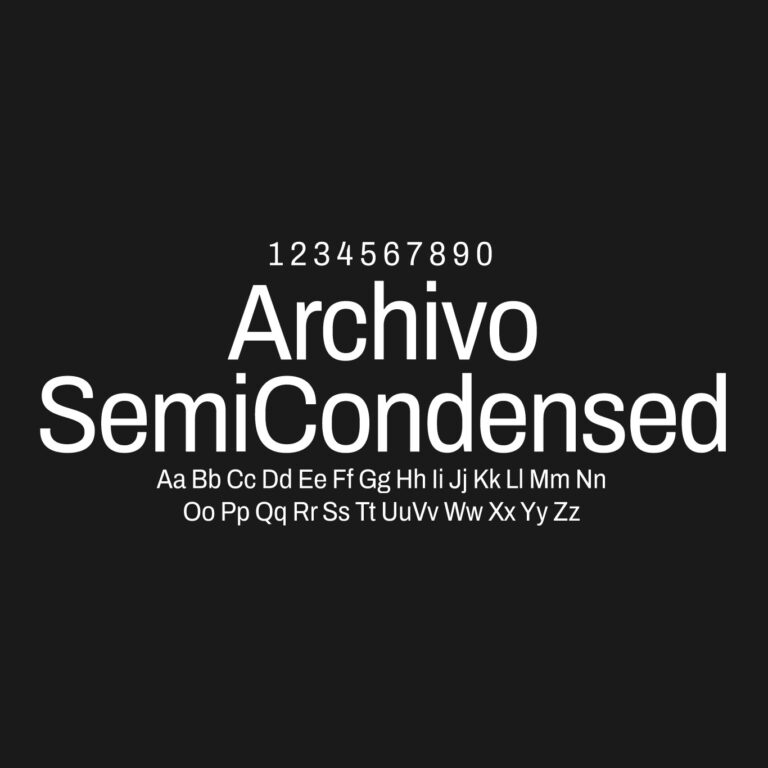
Archivo SemiCondensed is a slightly narrower version of the Archivo typeface, designed for strong typography in layouts that need better space efficiency without becoming too compressed. It has clean grotesque letterforms, balanced proportions and solid readability, making it useful for websites, app interfaces, posters, dashboards, editorial layouts, navigation systems, presentations and bold digital design projects.
Designer: Omnibus-Type